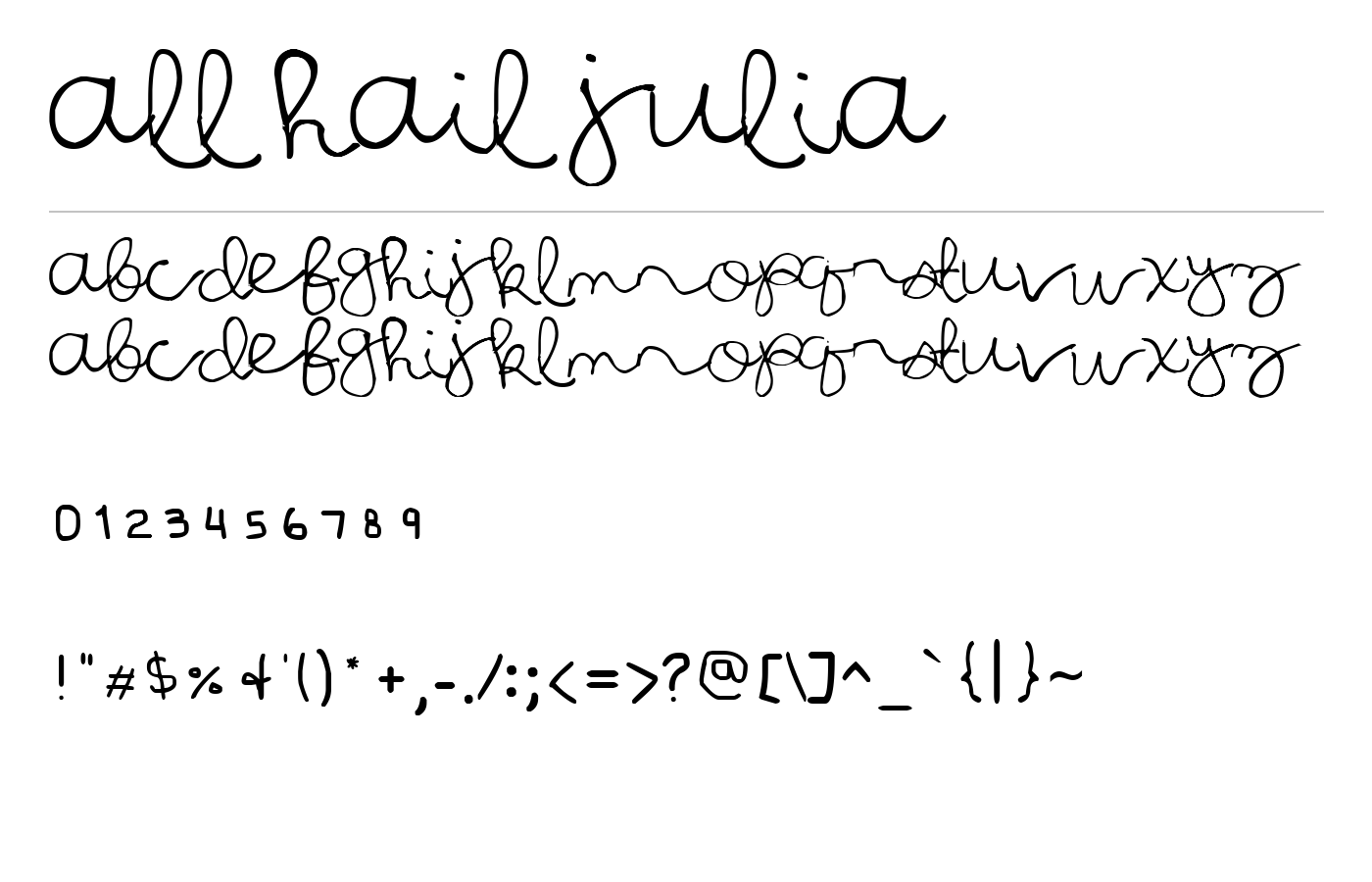
All Hail Julia is a playful, handwritten script font with a light weight and loose, casual strokes that give it a friendly, approachable feel. Its irregular, looping letterforms and unique quirky details make it perfect for creative projects, personal branding, or informal designs that want to convey warmth and personality. This font works well in logos, invitations, and social media graphics where a handwritten, personal touch is desired.
All Hail Julia Font
About All Hail Julia Font